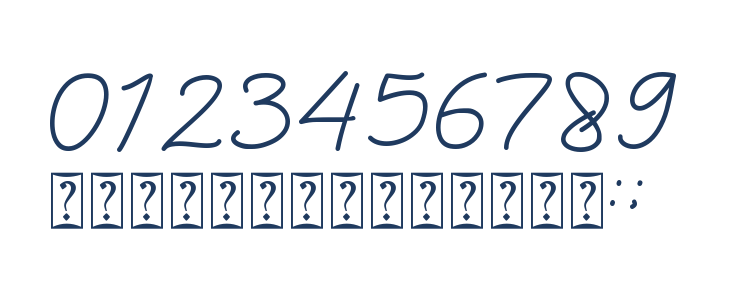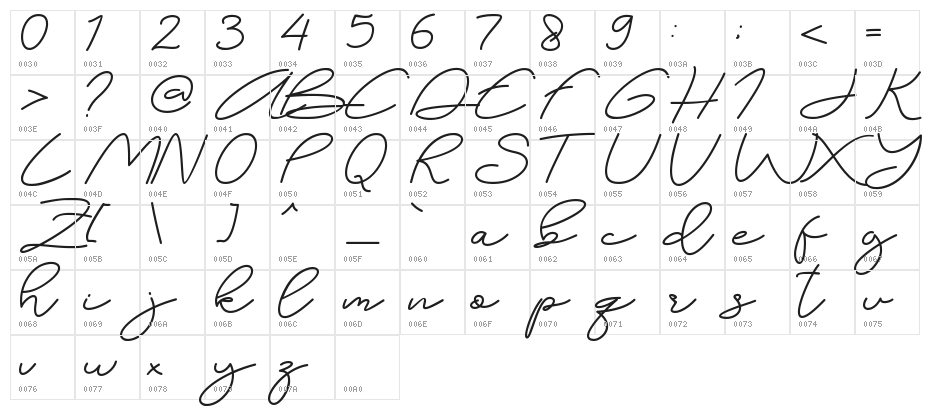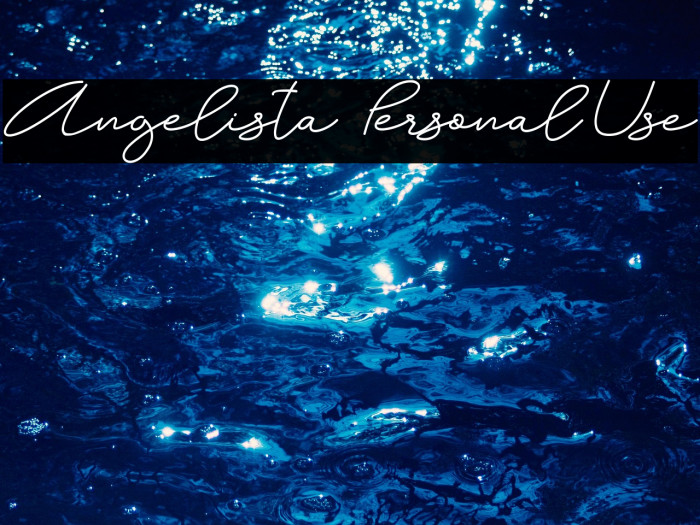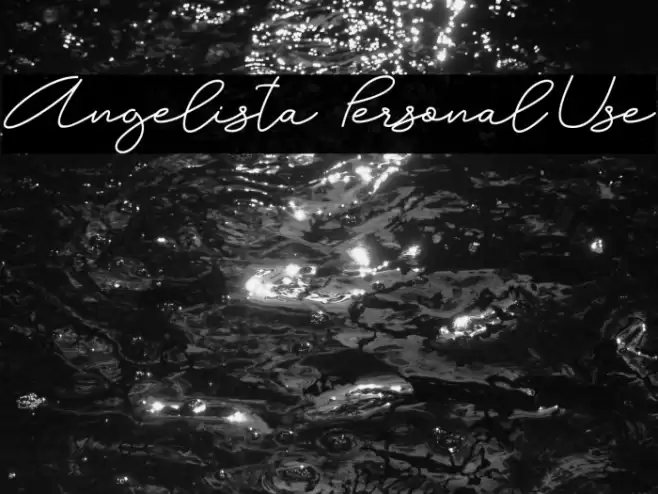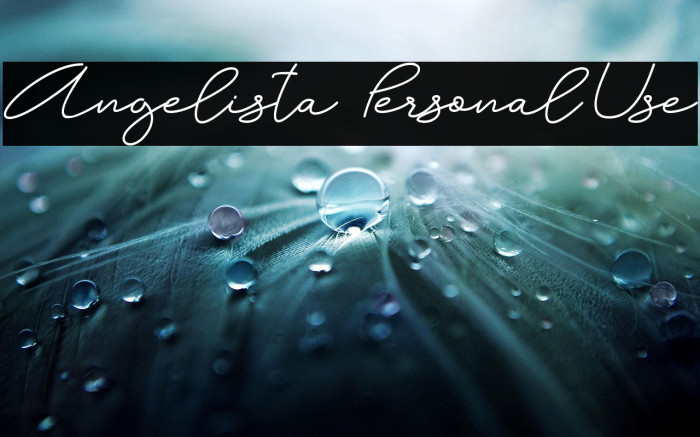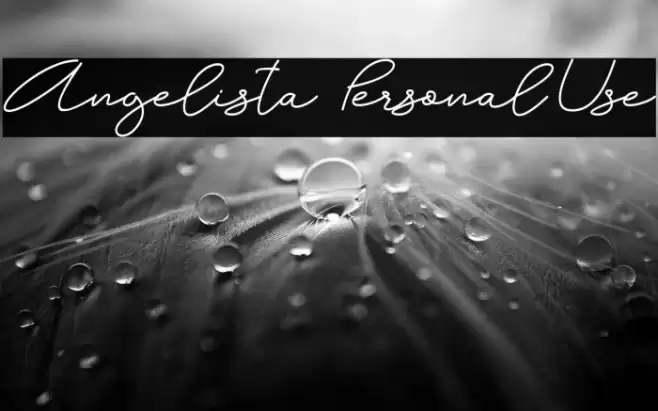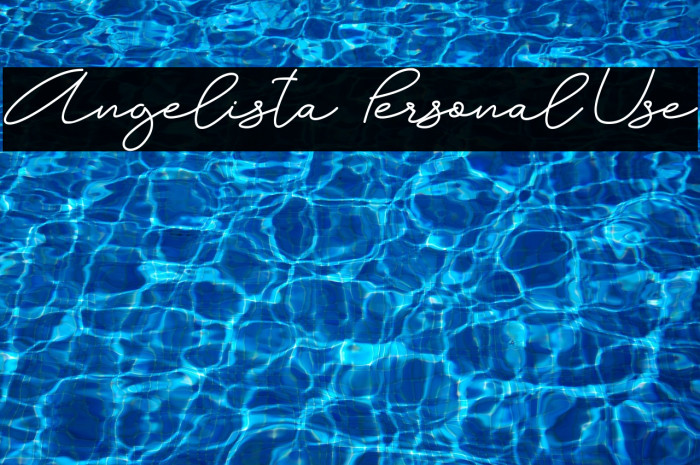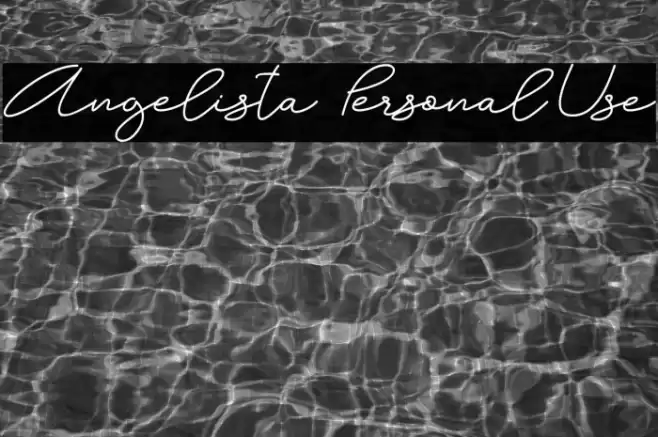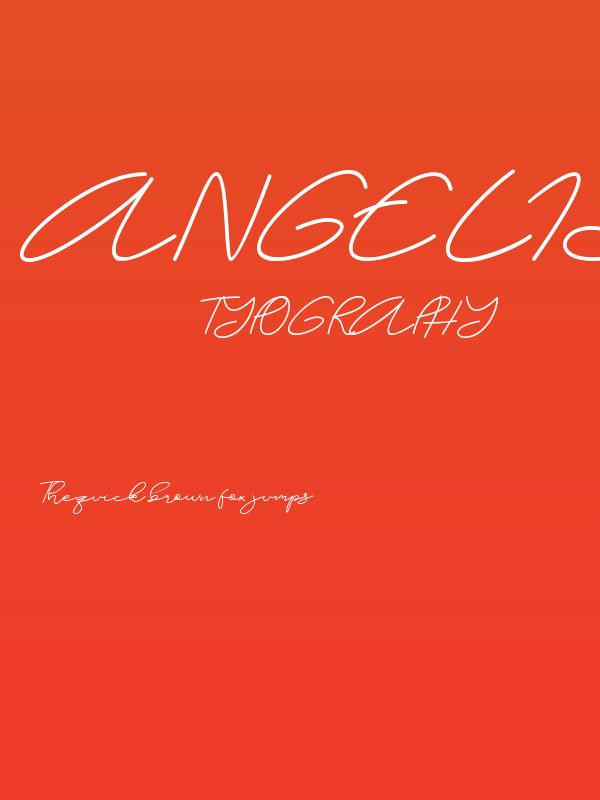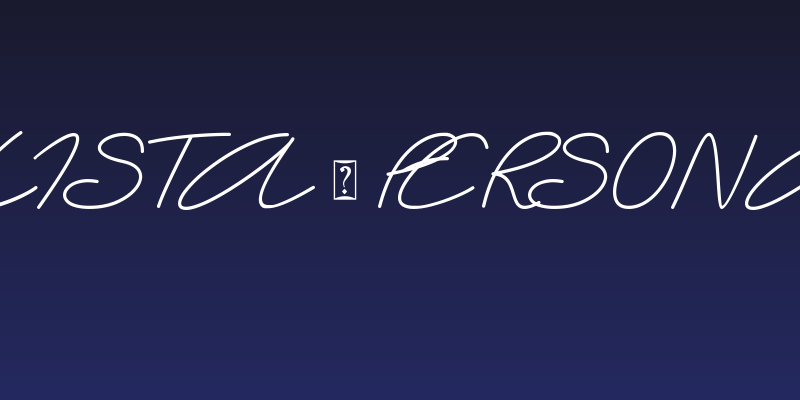
Angelista - Personal Use Font
Angelista - Personal Use Description
This font features a flowing, cursive style that mimics elegant handwriting. The letters are interconnected, creating a seamless and fluid appearance. The uppercase letters are slightly larger and more ornate, while the lowercase letters maintain a consistent and graceful form. The numerals are distinct yet harmonize well with the overall script style. Special characters are included, maintaining the same cursive flair. The strokes are smooth and consistent, giving the font a sophisticated and personal touch, ideal for projects that require a touch of elegance and individuality.